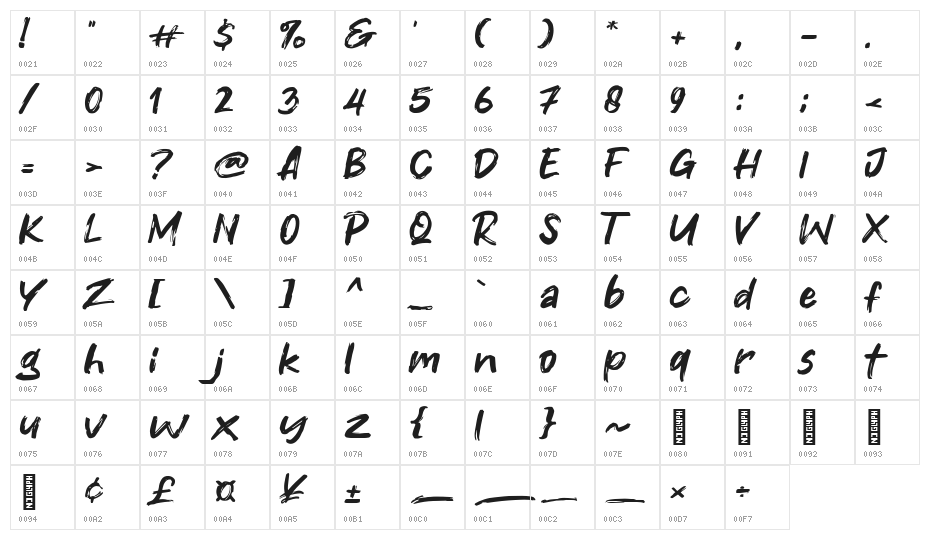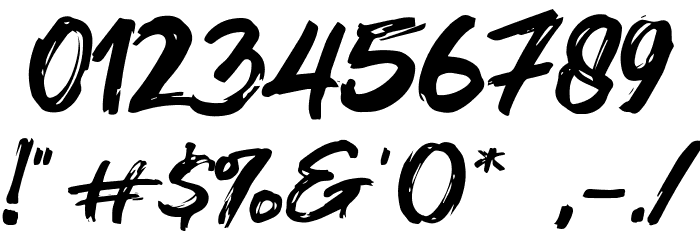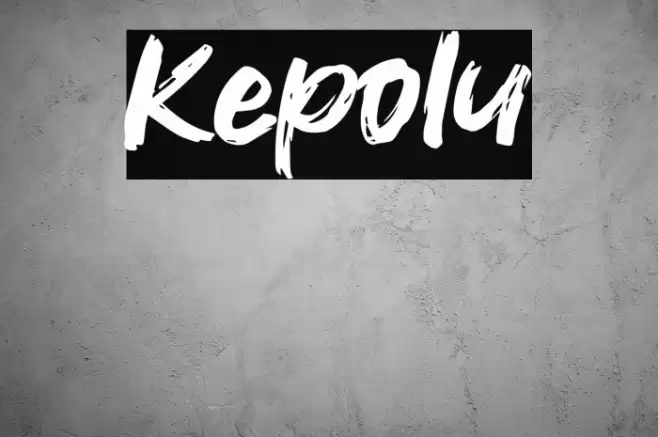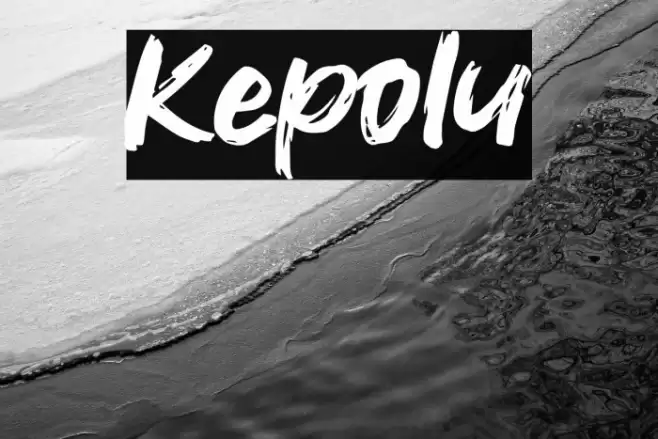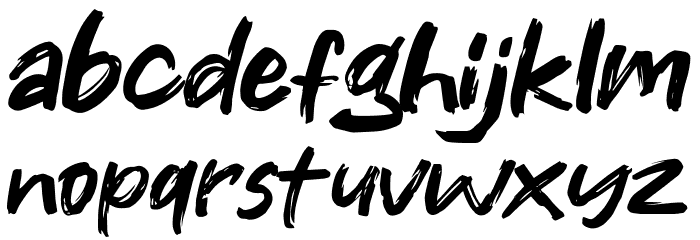
Kepolu Font
Kepolu Description
This font exhibits a bold, expressive style with brush-like strokes that convey a sense of energy and dynamism. The characters are crafted with a rough, textured appearance, giving them a hand-painted look. The uppercase and lowercase letters maintain a consistent style, with some letters featuring distinctive, exaggerated curves and angles. The numerals and special characters follow the same aesthetic, ensuring a cohesive visual experience. This font's unique style makes it suitable for projects that require a strong, artistic touch.
| Proposed Projects | Ideal for posters, album covers, branding, and any creative projects that require a bold, artistic flair. |